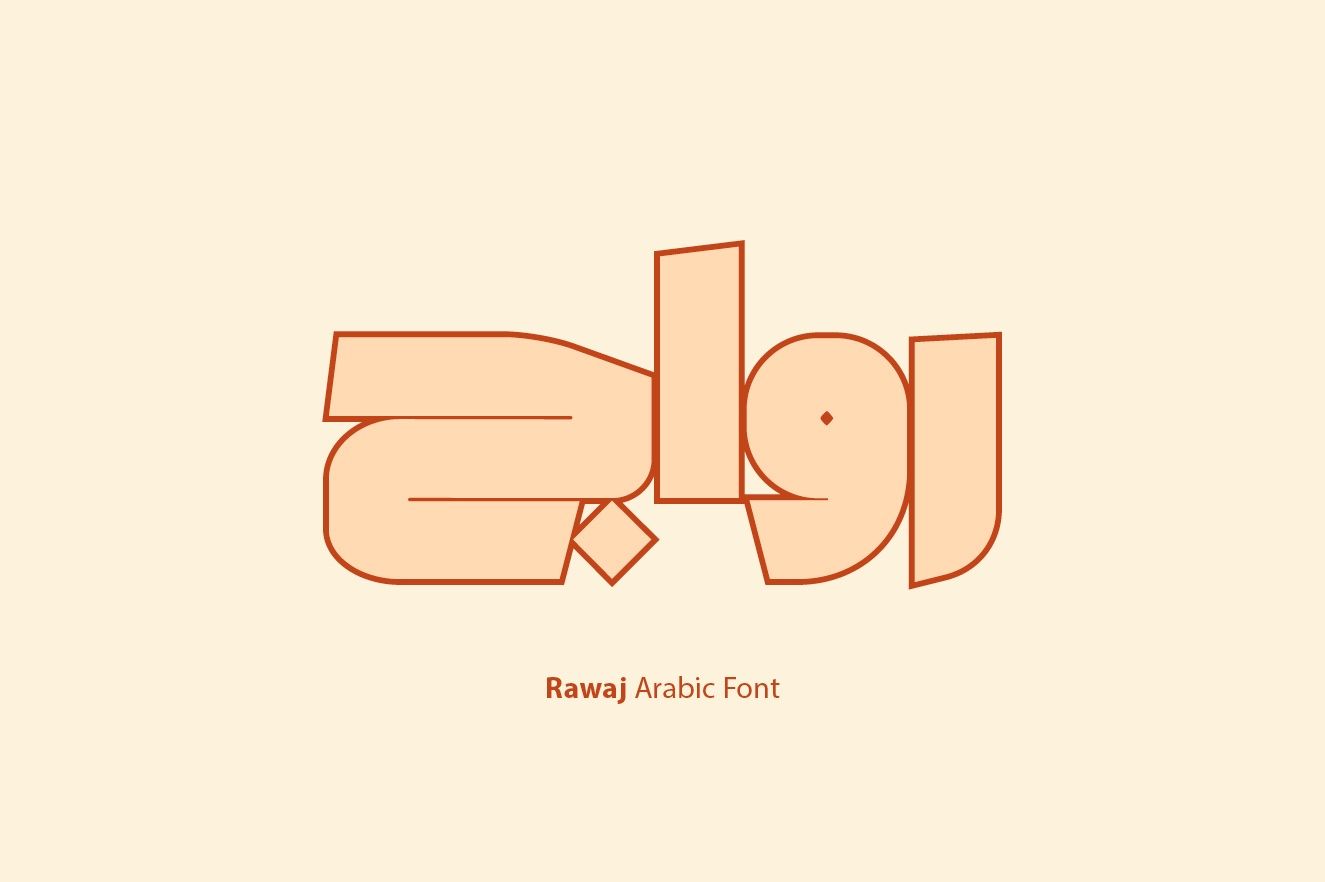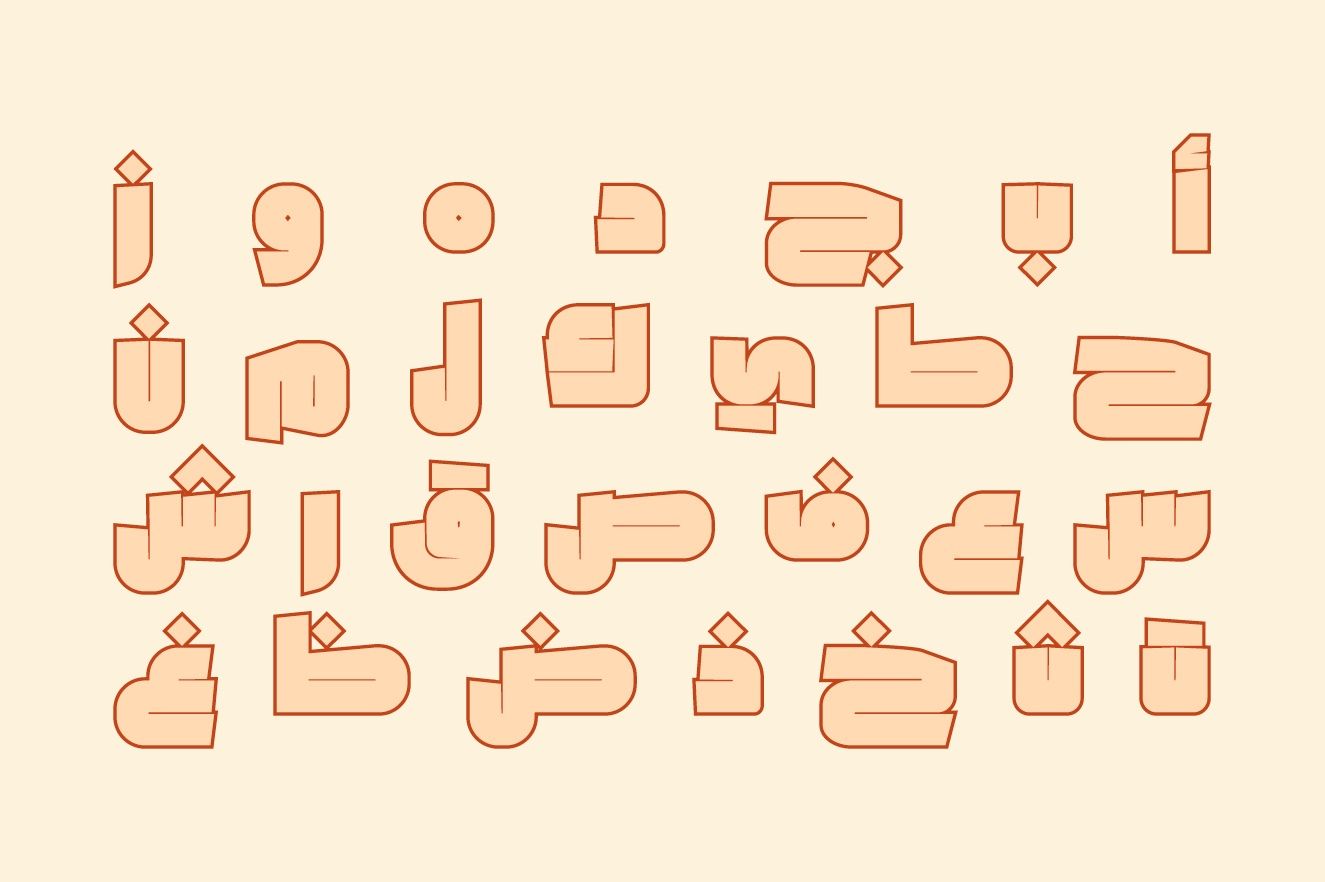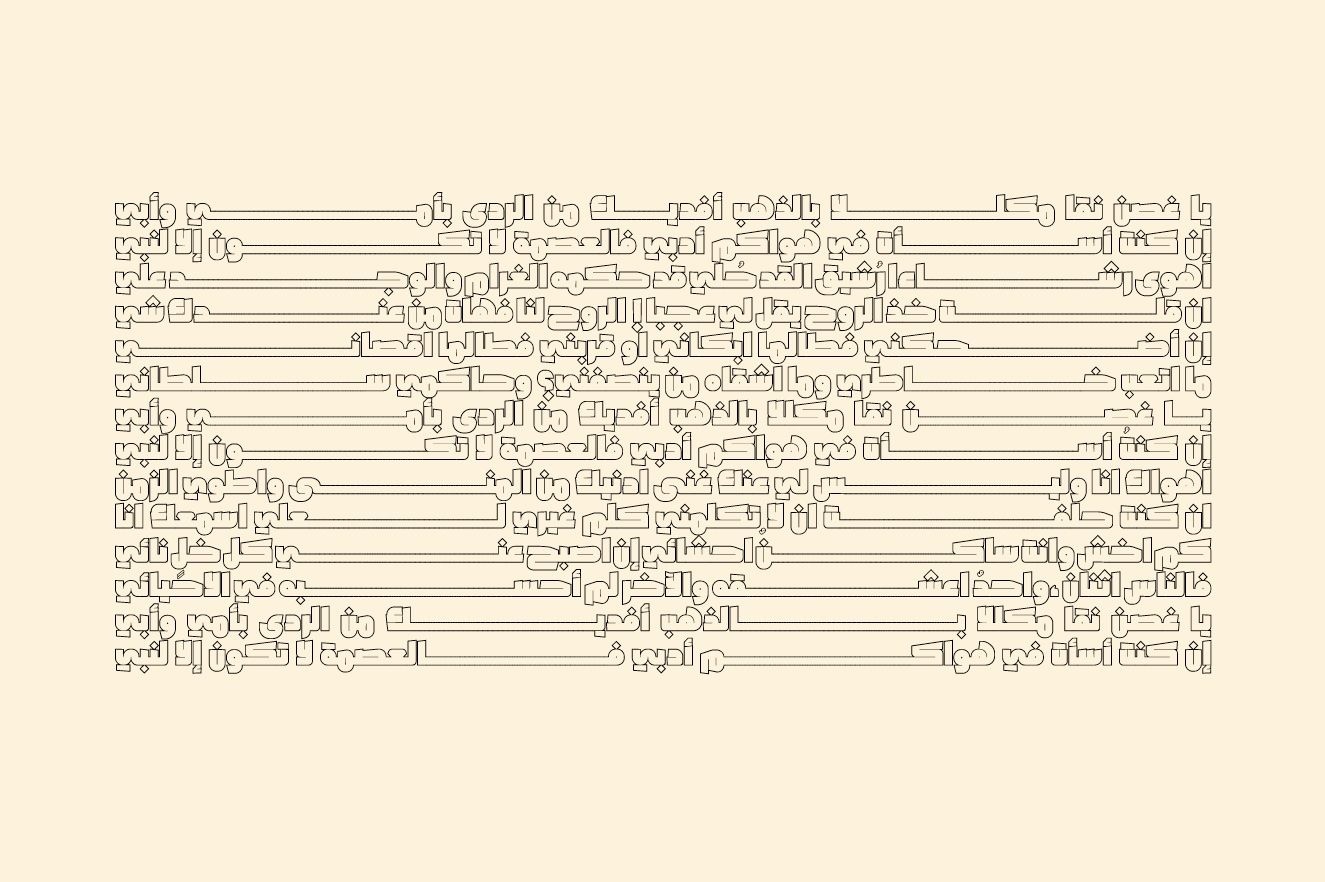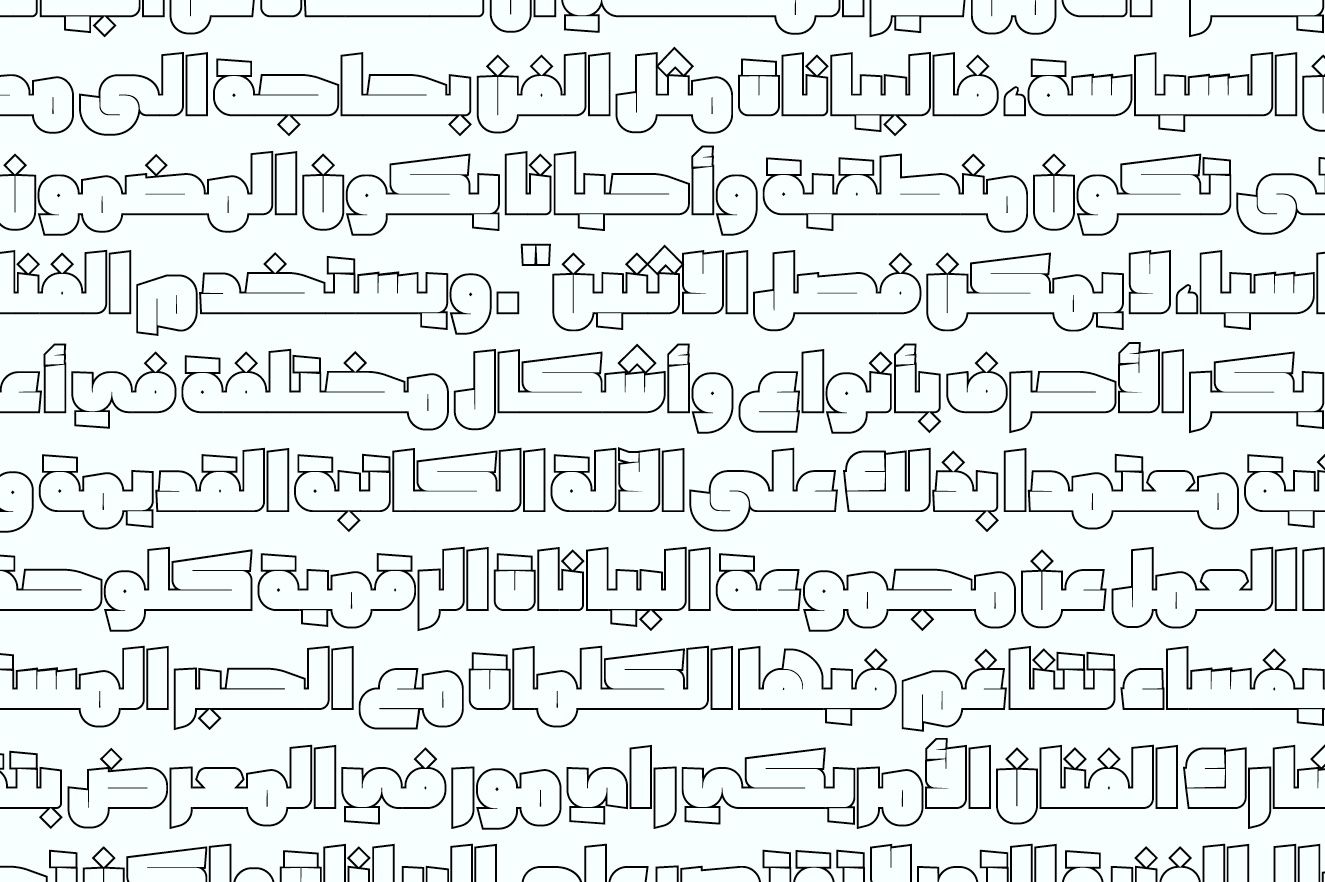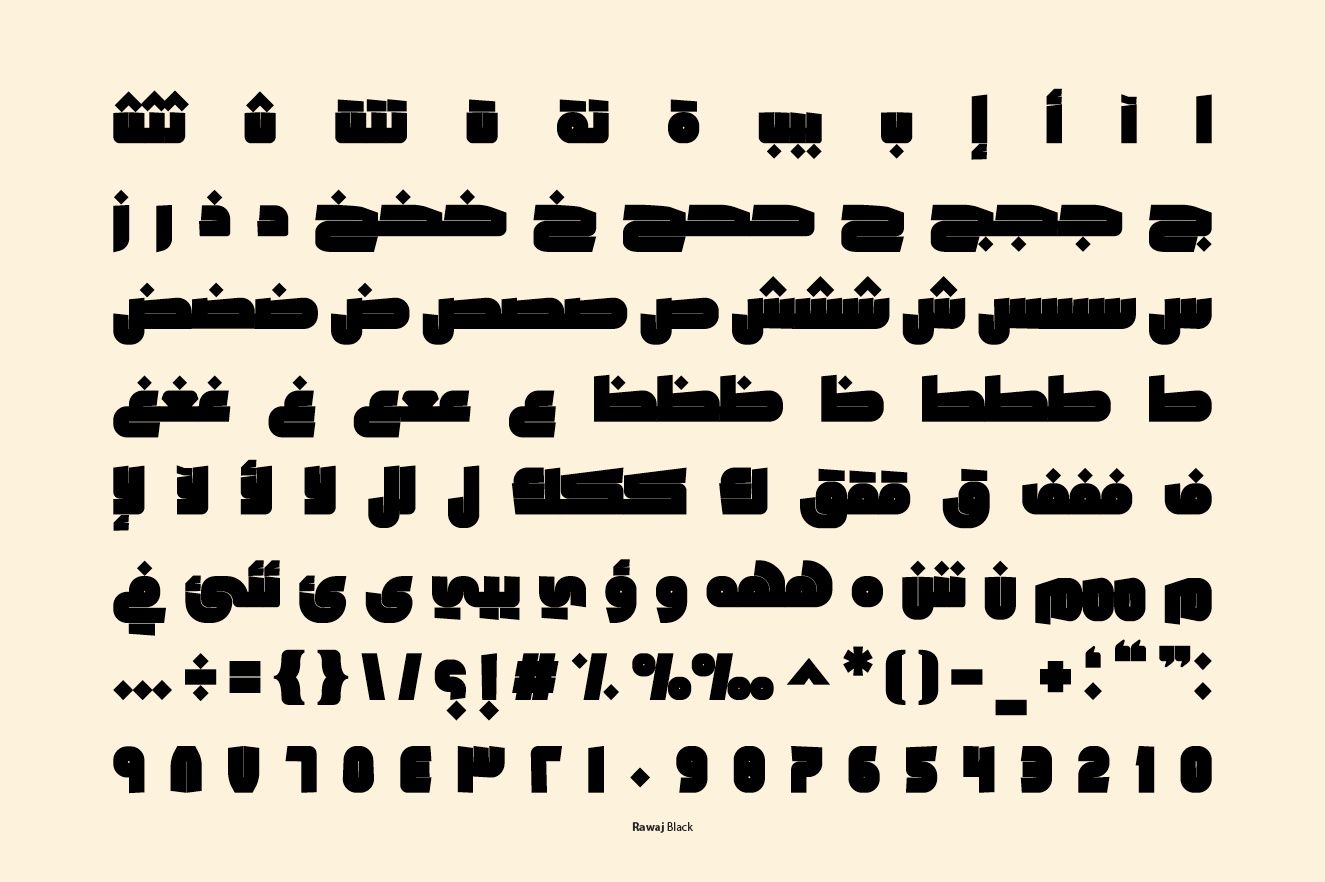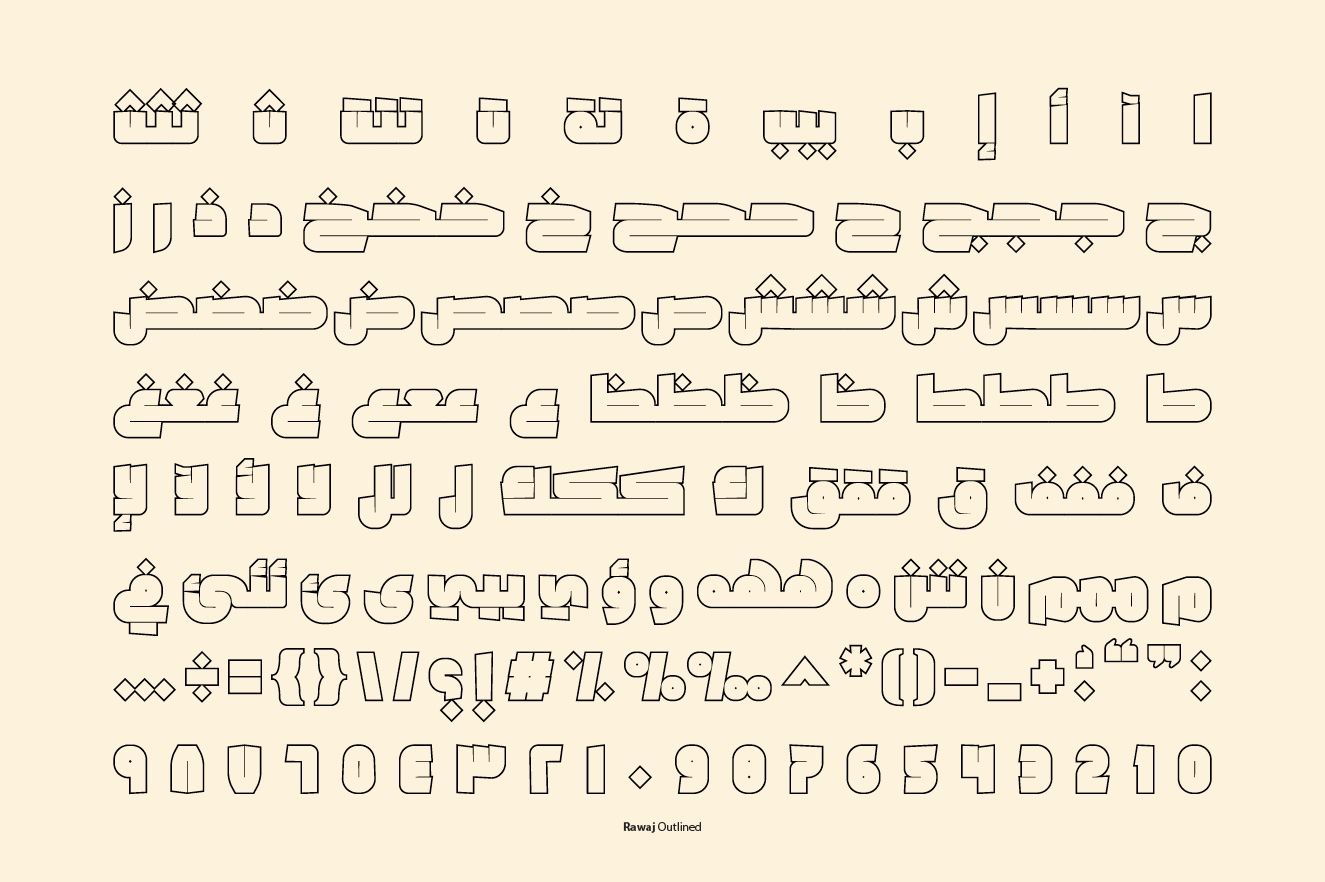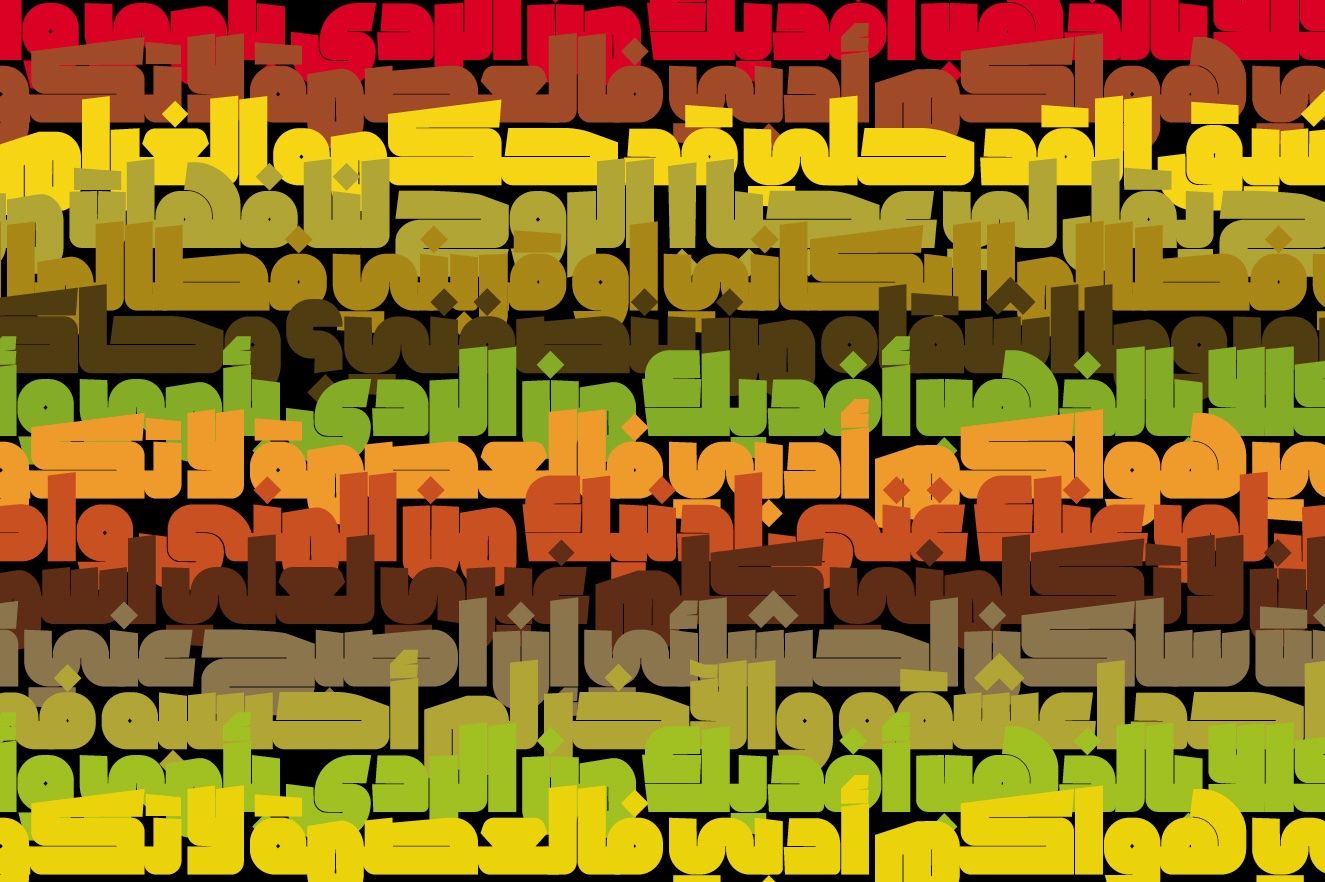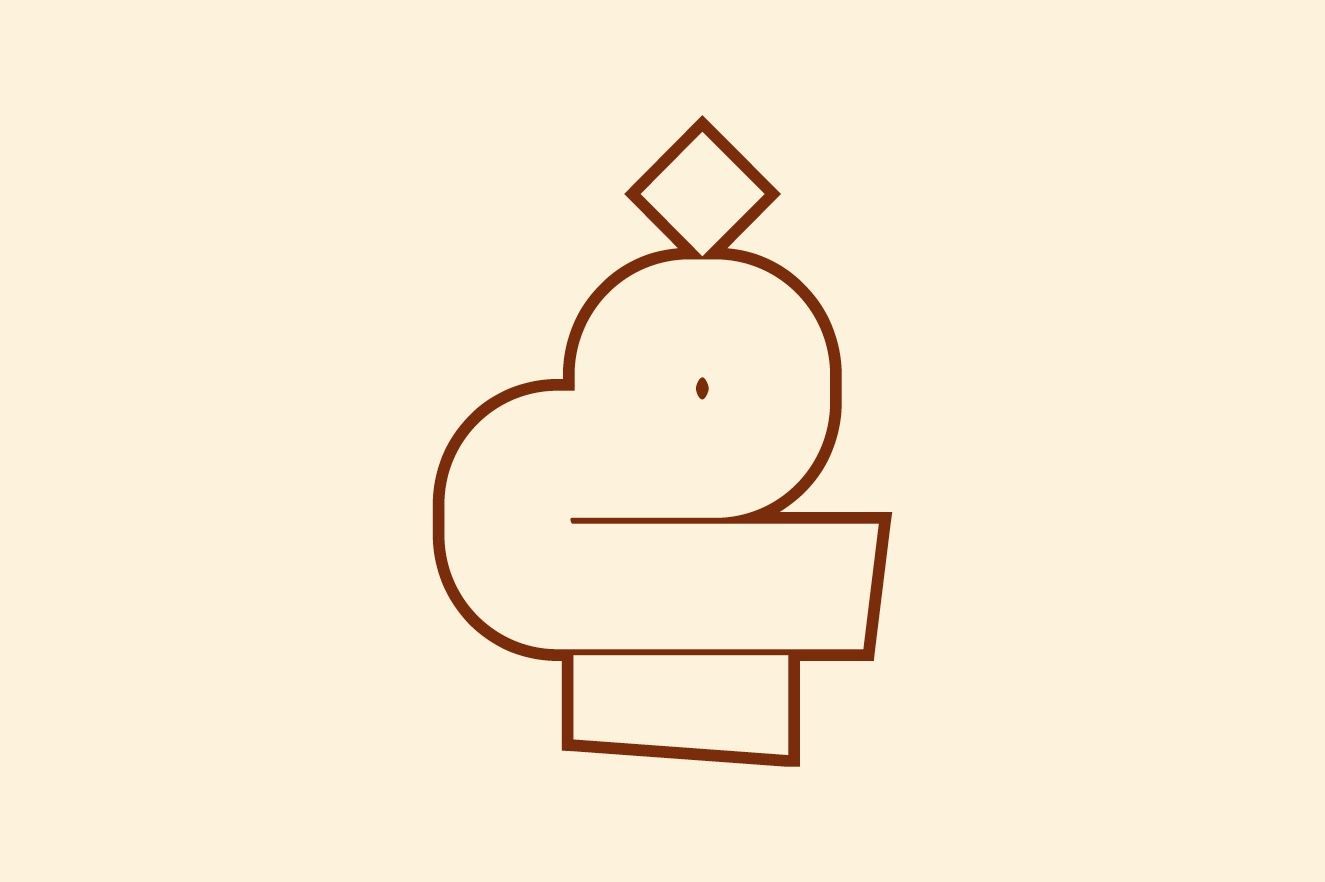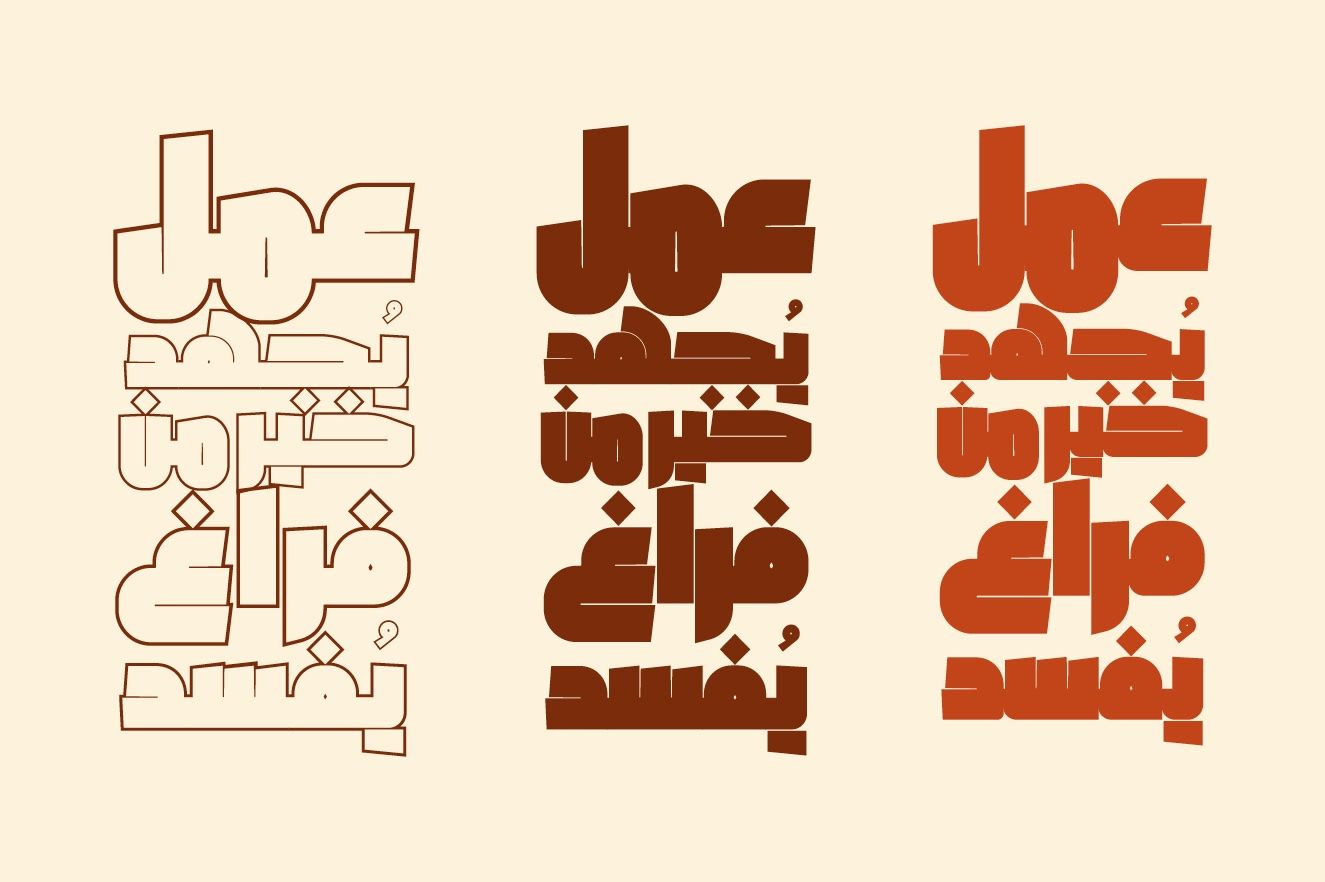
Rawaj is an Arabic display font. The design combines visual features from various writing styles of Arabic. Rawaj suits wide range of creative projects including web design, advertising and print.